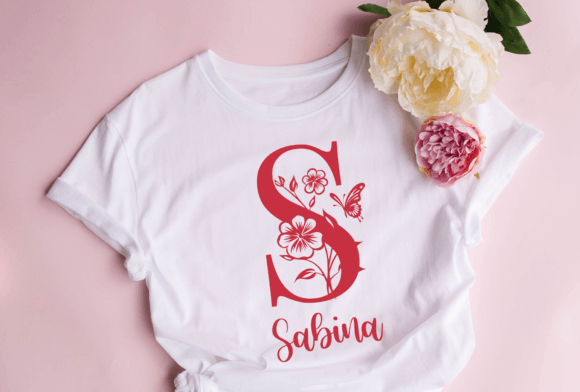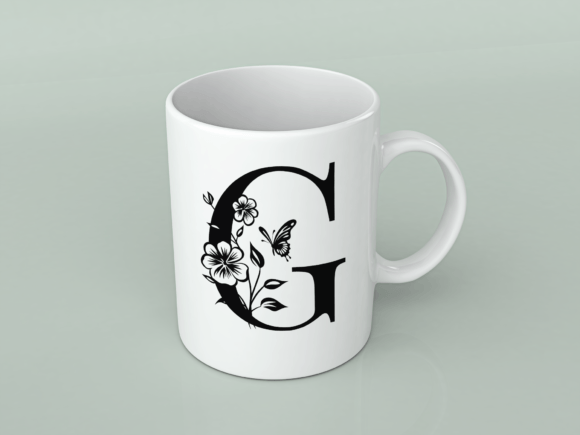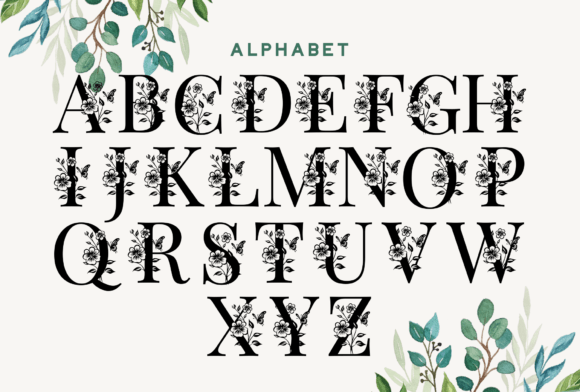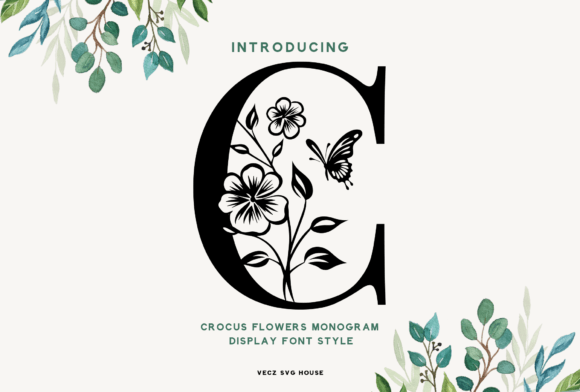
Crocus Monogram Font: Elevate Your Designs with Elegance and Whimsy
The “Crocus Flower Monogram” is a stunning typographic creation that encapsulates the delicate beauty of the crocus flower in a monogram design. This unique font embodies elegance, sophistication, and a touch of whimsy, making it the perfect choice for projects that require a blend of style and charm.
A Font that Exudes Serenity
The Crocus Flower Monogram Font exudes a sense of serenity with its clean lines and harmonious proportions. Its design is inspired by the crocus flower, known for its vibrant colors and delicate petals. The font’s creator has skillfully translated the flower’s beauty into a typographic form that is both visually appealing and easy to read.
The Crocus Flower Monogram Font’s versatile nature allows it to be used in various design contexts, from elegant wedding invitations and high-end branding to floral-inspired logos and decorative monograms. Whether you’re a designer looking for a unique font to add to your collection or a crafter seeking a special touch for your DIY projects, this font is sure to impress.
Designers will appreciate the font’s flexibility and scalability, making it suitable for a wide range of applications, from digital designs to print materials. Crafters, on the other hand, will love the font’s whimsical and charming nature, perfect for adding a personal touch to handmade cards, scrapbook pages, and other craft projects.
Captivating Charm
The font’s captivating charm adds a touch of enchantment to any project it graces. Its unique design elements, such as the delicate flower-inspired flourishes and elegant lines, make it stand out from more traditional fonts. Whether you’re looking to create a romantic and whimsical atmosphere or a sophisticated and elegant one, the Crocus Flower Monogram Font is sure to deliver.
Use Cases
So, how can you use the Crocus Flower Monogram Font in your designs? Here are a few ideas to get you started:
- Wedding Invitations: Add a touch of elegance and romance to your wedding invitations with this beautiful font.
- Branding: Use the Crocus Flower Monogram Font to create a unique and memorable brand identity for your business.
- Logos: Create a stunning floral-inspired logo that captures the essence of your brand.
- DIY Projects: Add a personal touch to your handmade cards, scrapbook pages, and other craft projects with this charming font.
Why Choose the Crocus Monogram Font?
So, why choose the Crocus Flower Monogram Font over other fonts? Here are just a few reasons:
- Unique Design: The font’s unique design elements, inspired by the crocus flower, make it stand out from more traditional fonts.
- Versatility: The font’s versatility allows it to be used in a wide range of design contexts.
- Elegance: The font’s elegant lines and harmonious proportions make it perfect for projects that require a touch of sophistication.
- Whimsy: The font’s whimsical nature adds a touch of charm and enchantment to any project.
In conclusion, the Crocus Flower Monogram Font is a stunning typographic creation that is sure to elevate your designs with its elegance, sophistication, and whimsy. Whether you’re a designer or a crafter, this font is perfect for projects that require a blend of style and charm. With its unique design elements, versatility, and captivating charm, the Crocus Flower Monogram Font is a must-have for anyone looking to add a touch of enchantment to their designs.